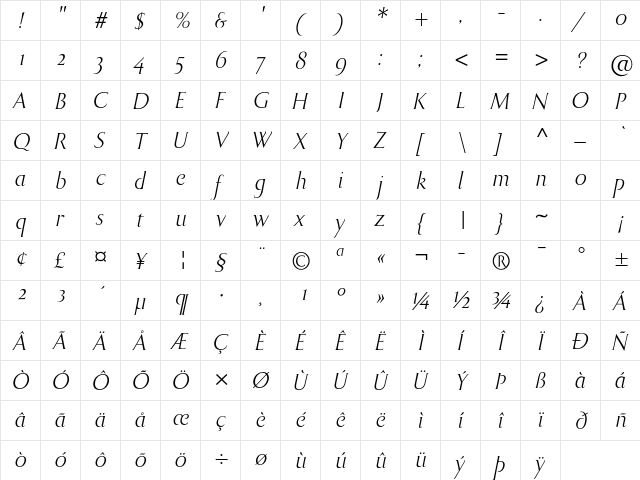
Bodebeck LT Std Italic Font Preview
| Foundry | Linotype GmbH |
| Designer | Anders Bodebeck |
Design Context for Bodebeck LT Std Typeface
Bodebeck LT Std offers clean, dependable letterforms without strong stylistic allegiance, making it a practical choice for designers who need flexibility. The dynamic lean of this cut emphasises speed and emphasis in any layout. The delicate stroke weight brings airiness and refinement to layouts.
Pro Tip: Try Bodebeck LT Std for annotation and caption copy alongside an upright companion — the contrast in angle creates a dynamic but ordered typographic system.